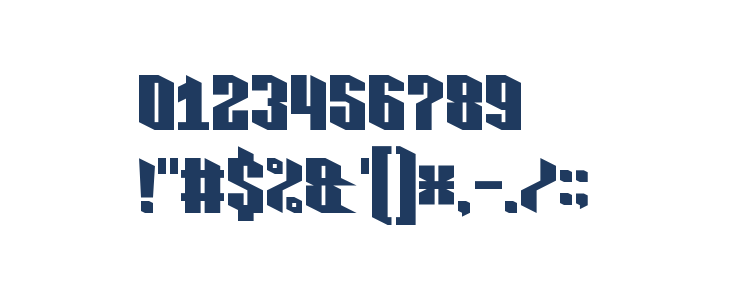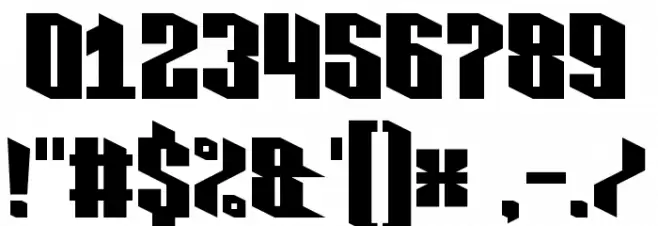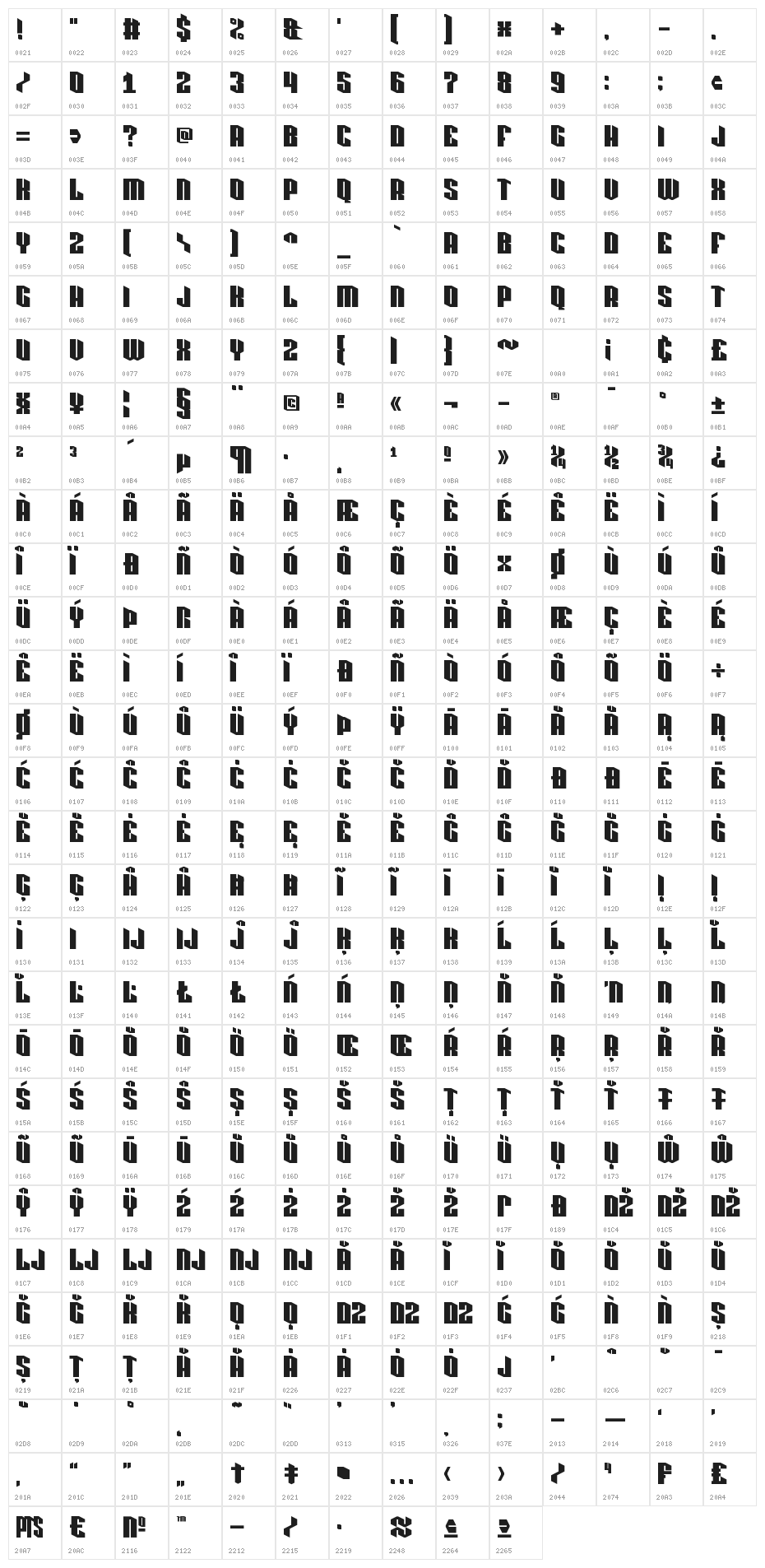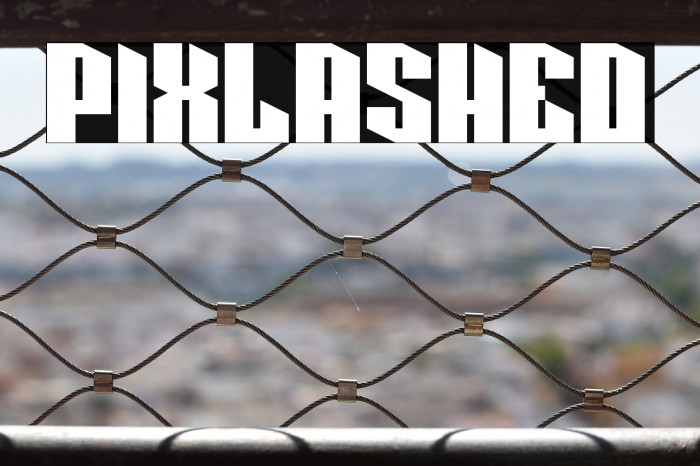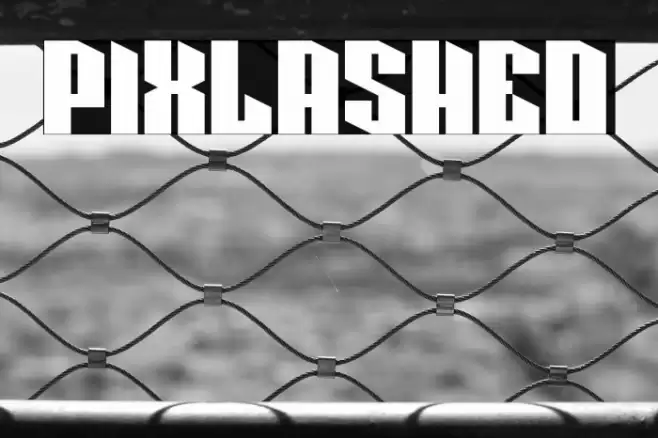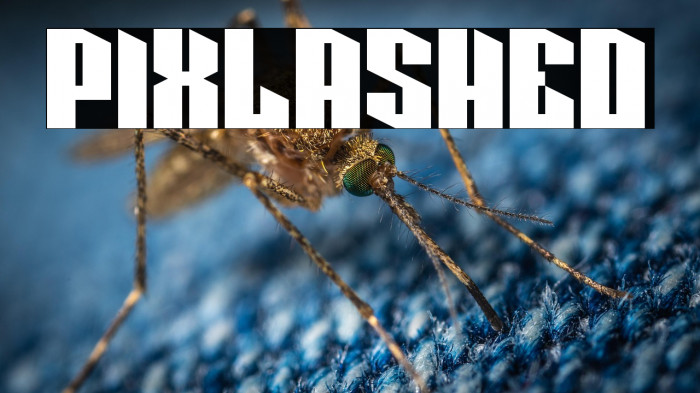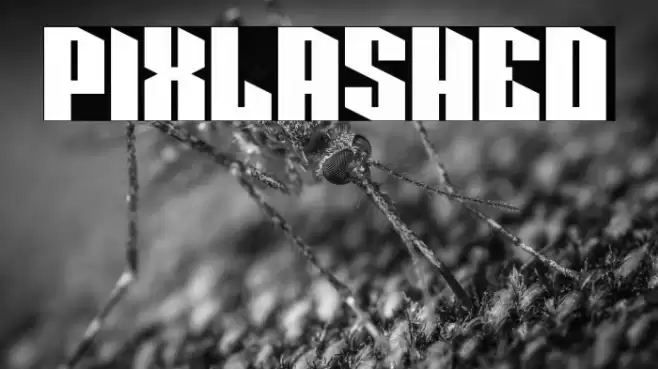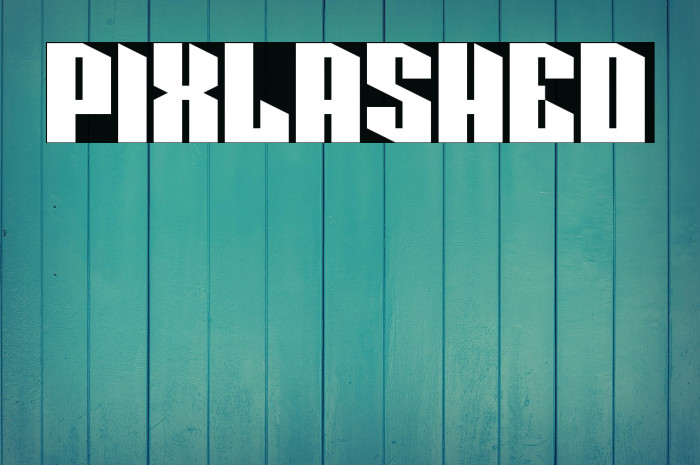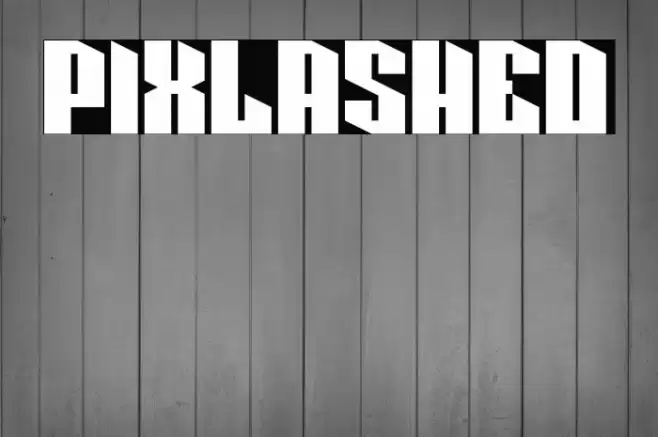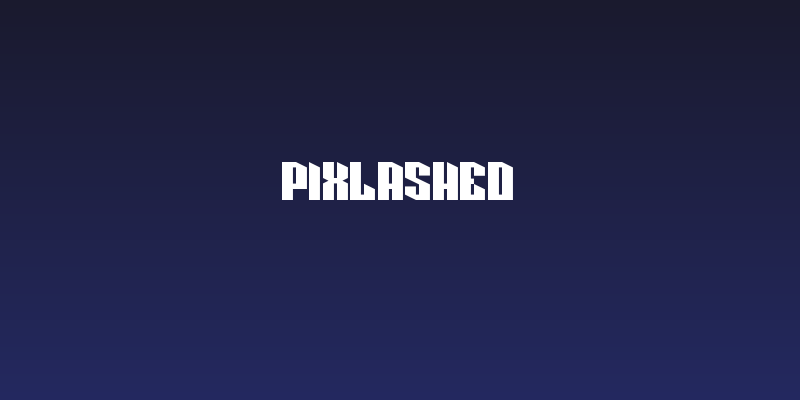
Pixlashed Font
Pixlashed Description
This font features a bold, geometric design with sharp angles and a blocky appearance. The characters are uniformly thick, creating a strong visual impact. The uppercase and lowercase letters share a similar structure, emphasizing the font's consistency. The numbers and special characters maintain the same bold style, making them easily legible. This font's unique style is reminiscent of digital or pixel art, giving it a modern and edgy feel. Its distinctiveness makes it suitable for attention-grabbing designs.